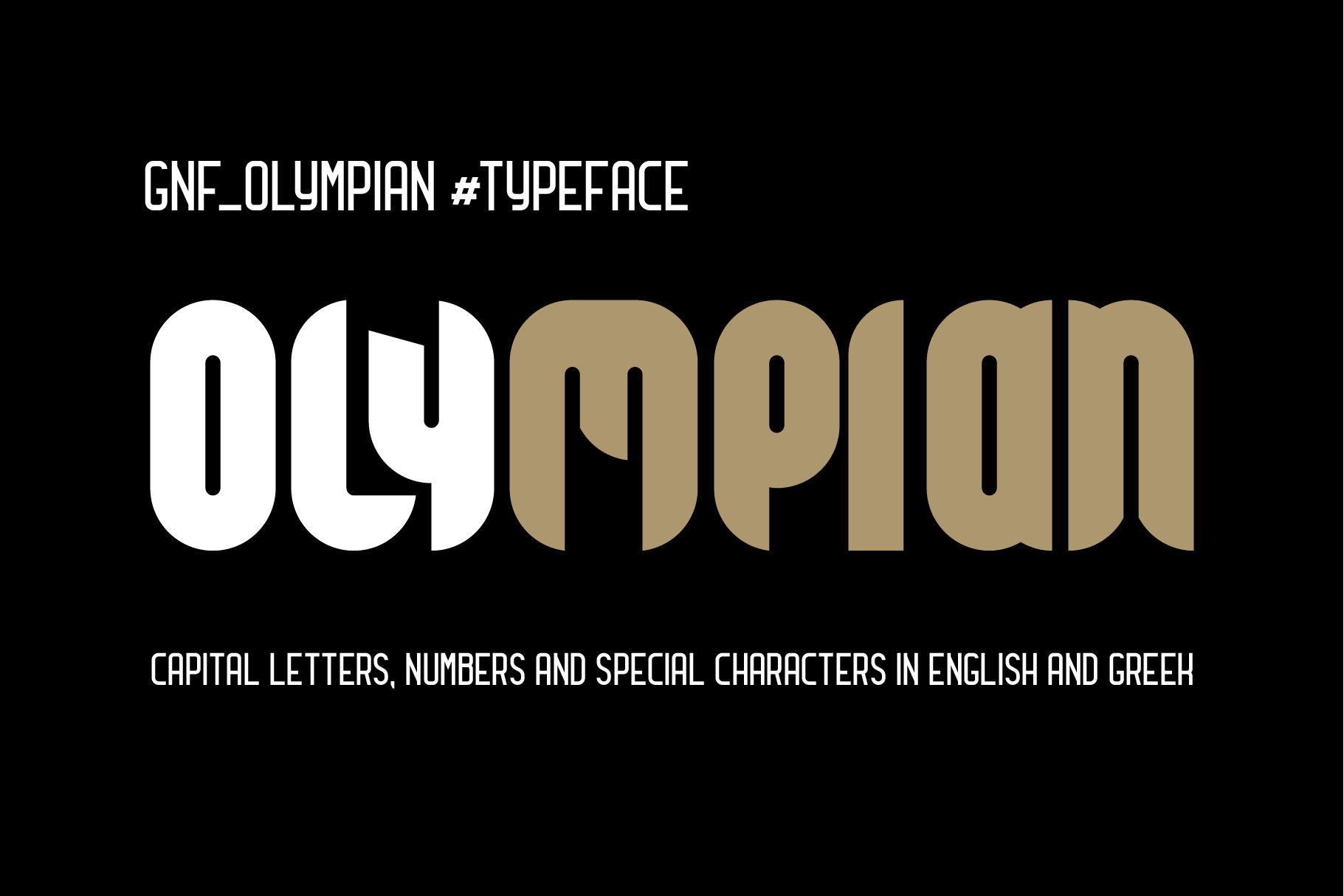
GNF-Olympian Font
Elegant bold font for titles and logo creation... 2 languages supported, English and Greek, capital letters only, numbers and some special characters...